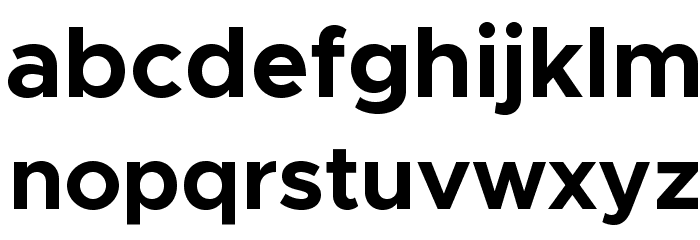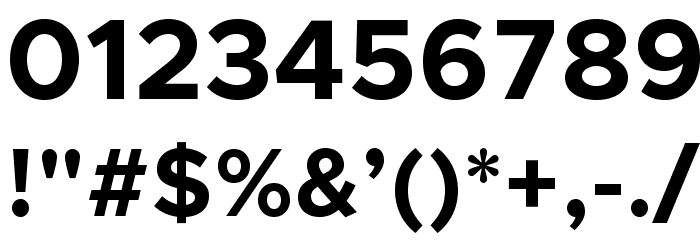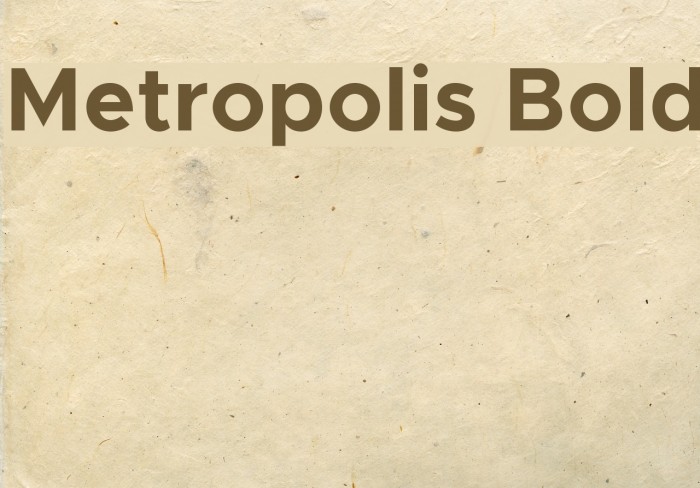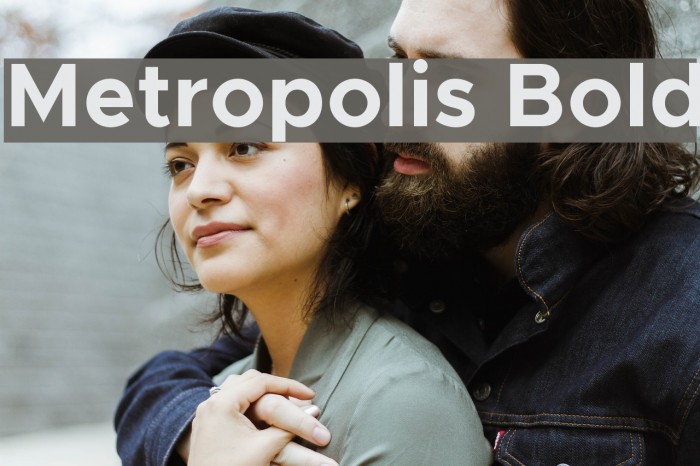
Metropolis Bold Font
This font features a clean, geometric sans-serif style with a modern and bold appearance. The characters are well-balanced with uniform stroke widths, creating a harmonious and professional look. The uppercase letters are strong and assertive, while the lowercase letters maintain a friendly and approachable feel. The numerals are clear and easily distinguishable, making them suitable for various applications. The special characters are designed with the same attention to detail, ensuring consistency across all glyphs. This font is versatile and can be used in a wide range of design projects.
A modern, bold, geometric sans-serif font with uniform stroke widths.
- Proposed Projects: Ideal for branding, advertising, web design, and editorial layouts.
- Use Case: Headlines, Logos, Branding